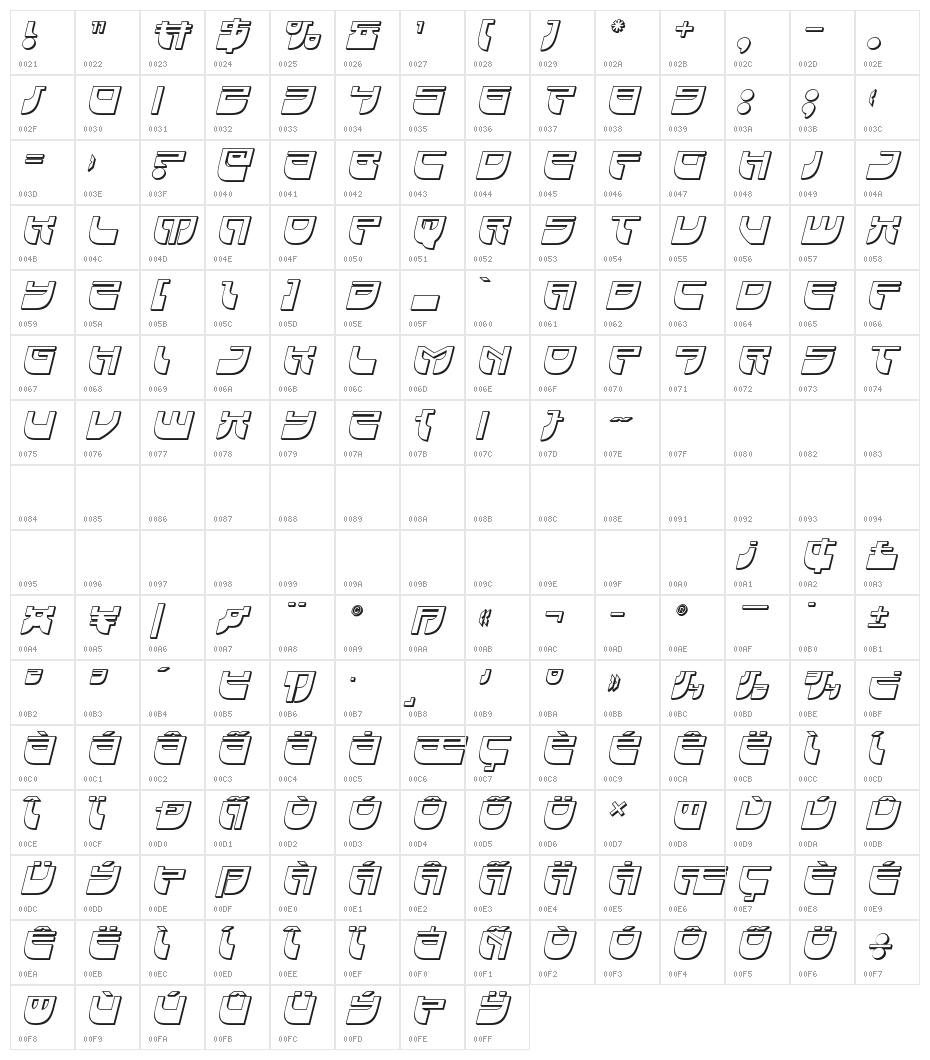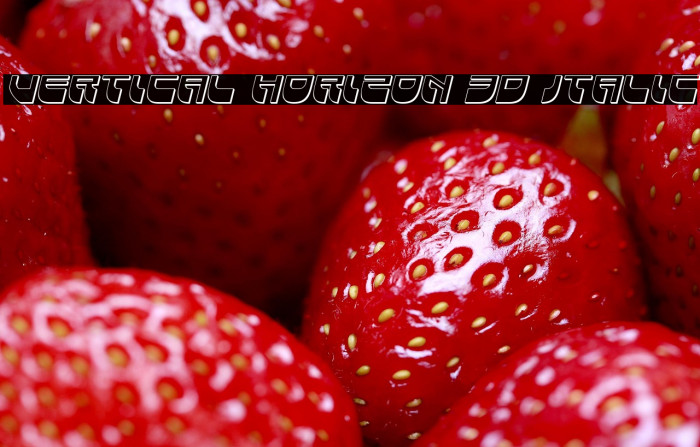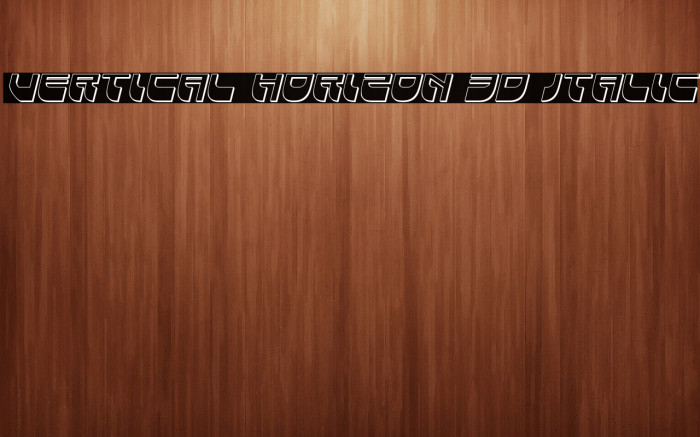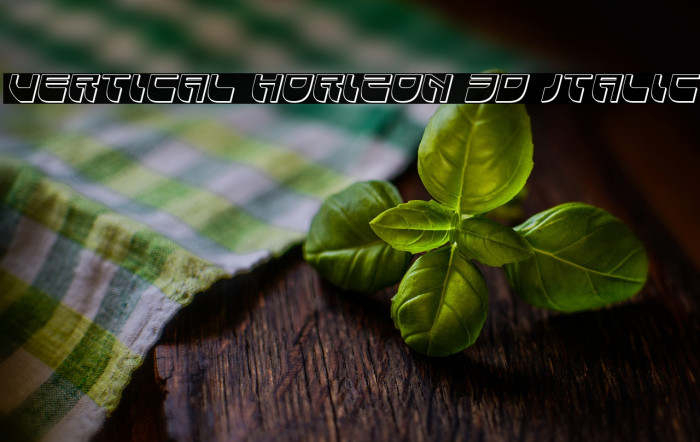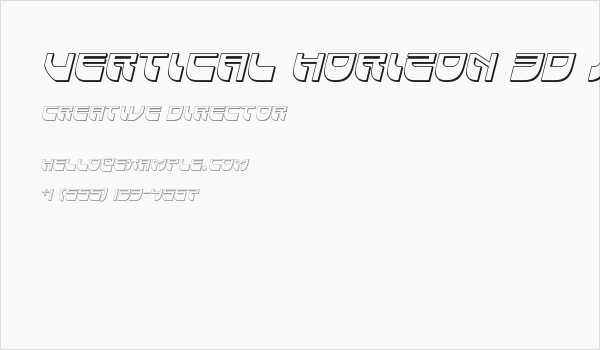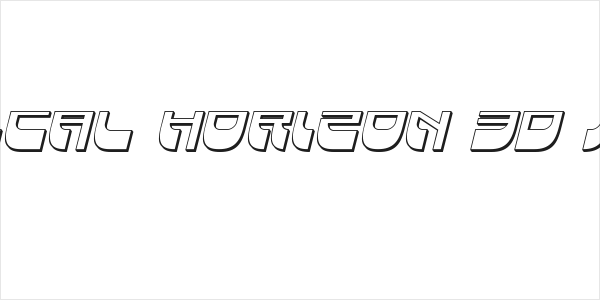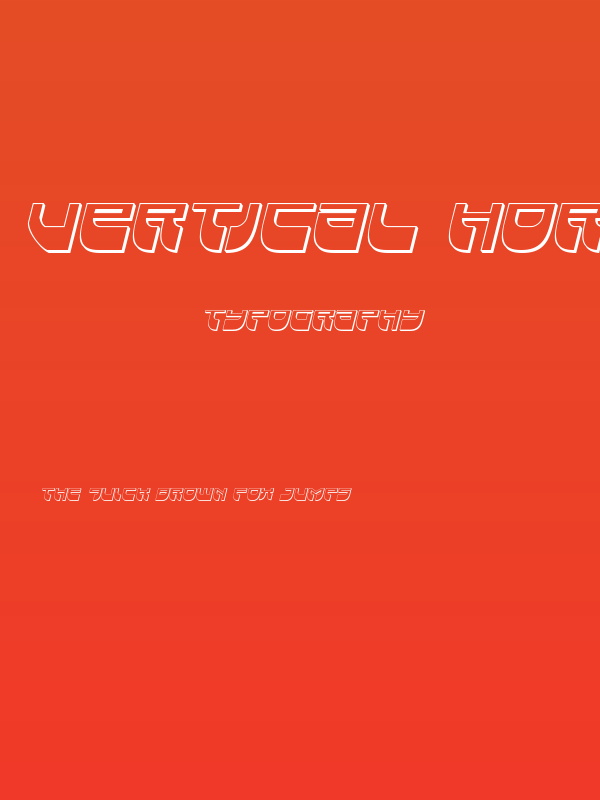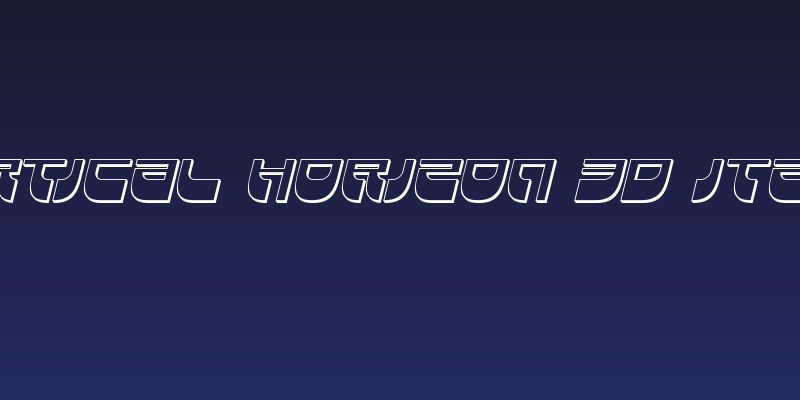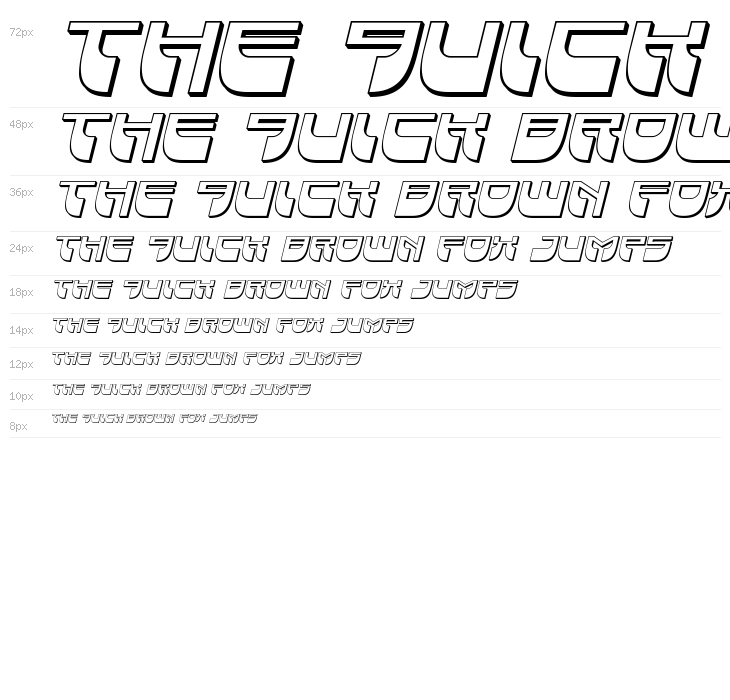
Vertical Horizon 3D Italic Font
Vertical Horizon 3D Italic Description
This font features a futuristic and dynamic 3D effect with italicized characters, giving it a sense of motion and depth. The letters are outlined with a bold, black stroke, enhancing the three-dimensional appearance. The design incorporates sharp angles and geometric shapes, creating a modern and edgy look. The uppercase and lowercase letters maintain a consistent style, with the numerals and special characters following suit. This font is visually striking and ideal for projects that require a bold statement.
| Proposed Projects | Ideal for sci-fi themed designs, video game titles, tech branding, and futuristic posters. |